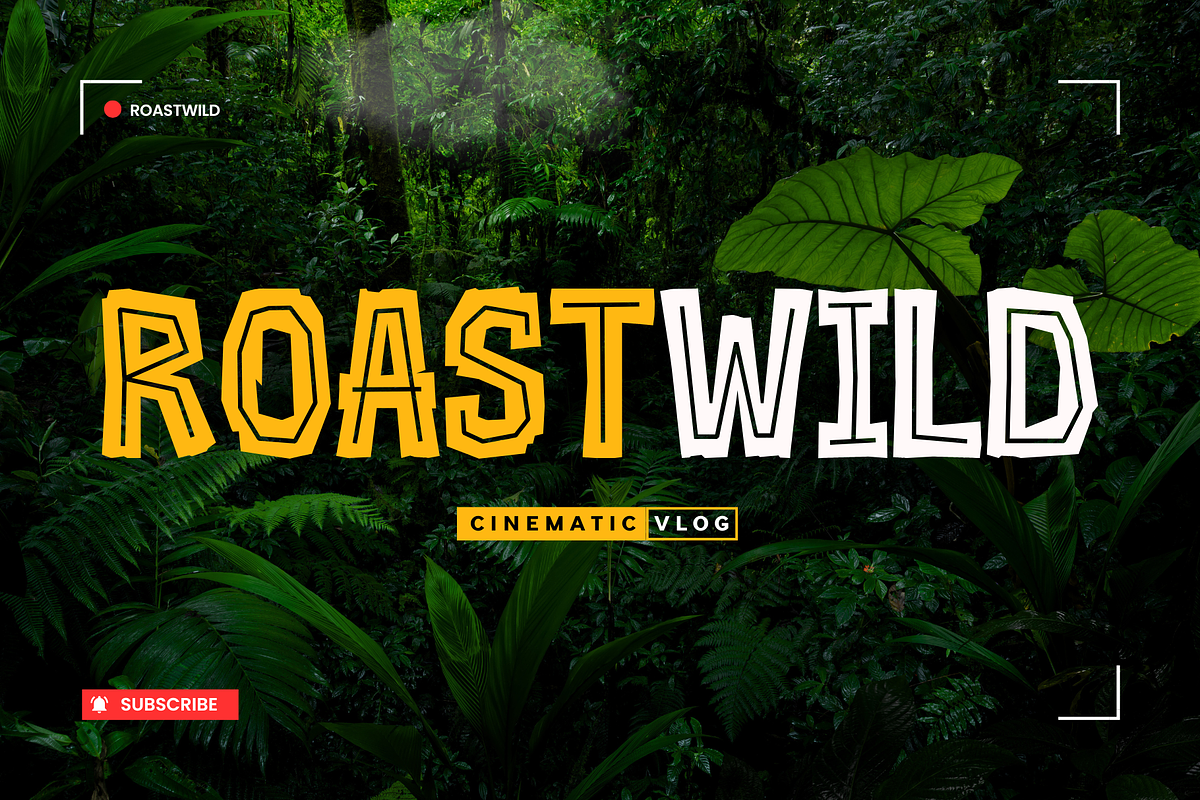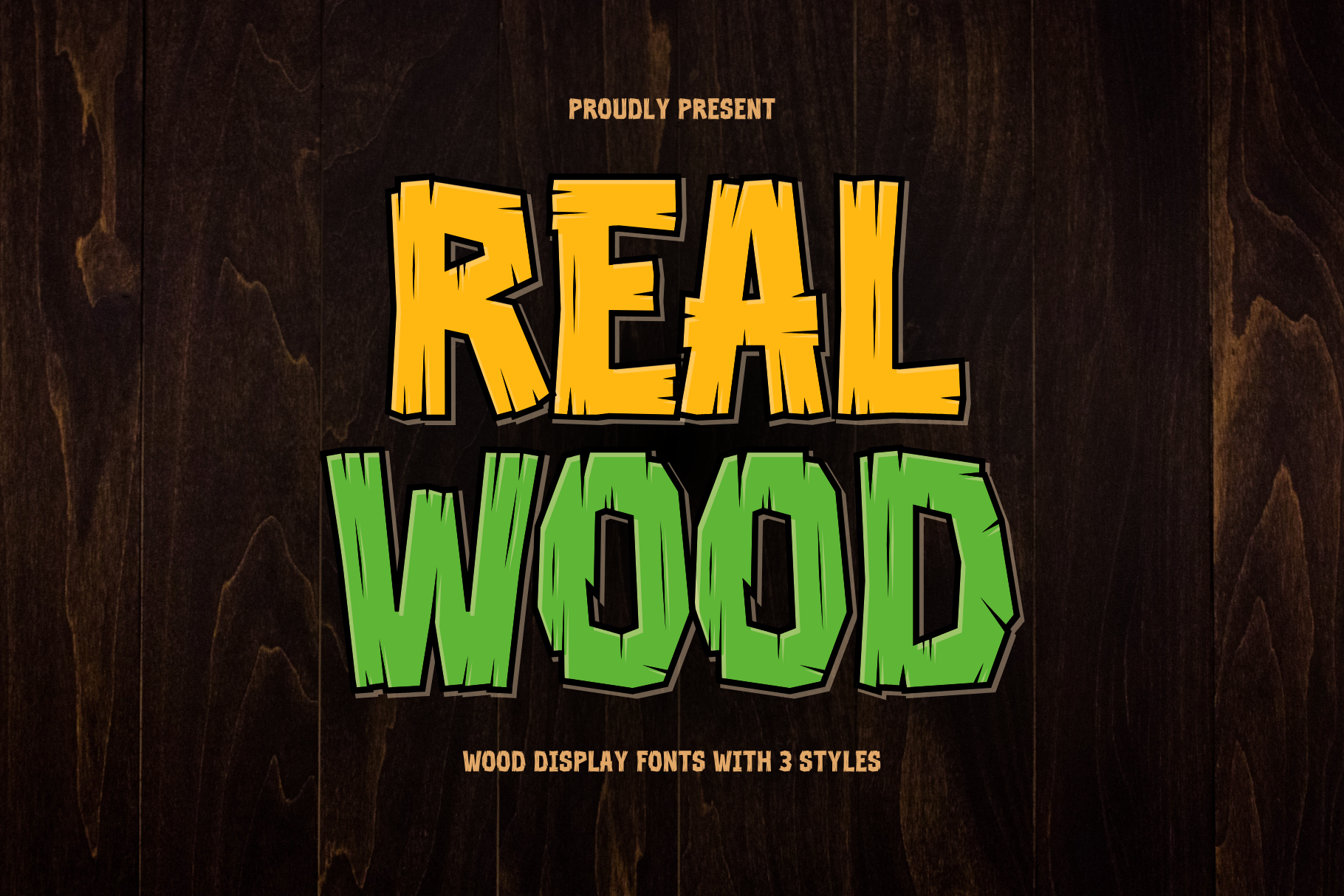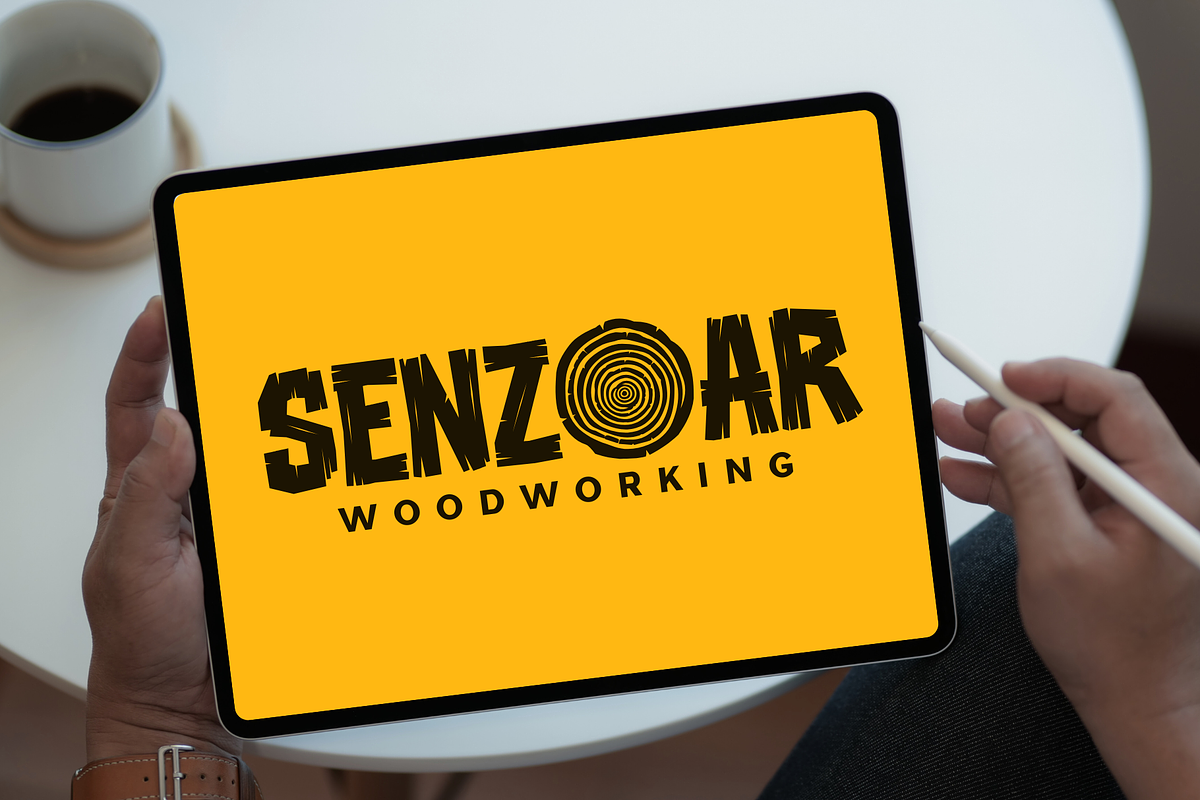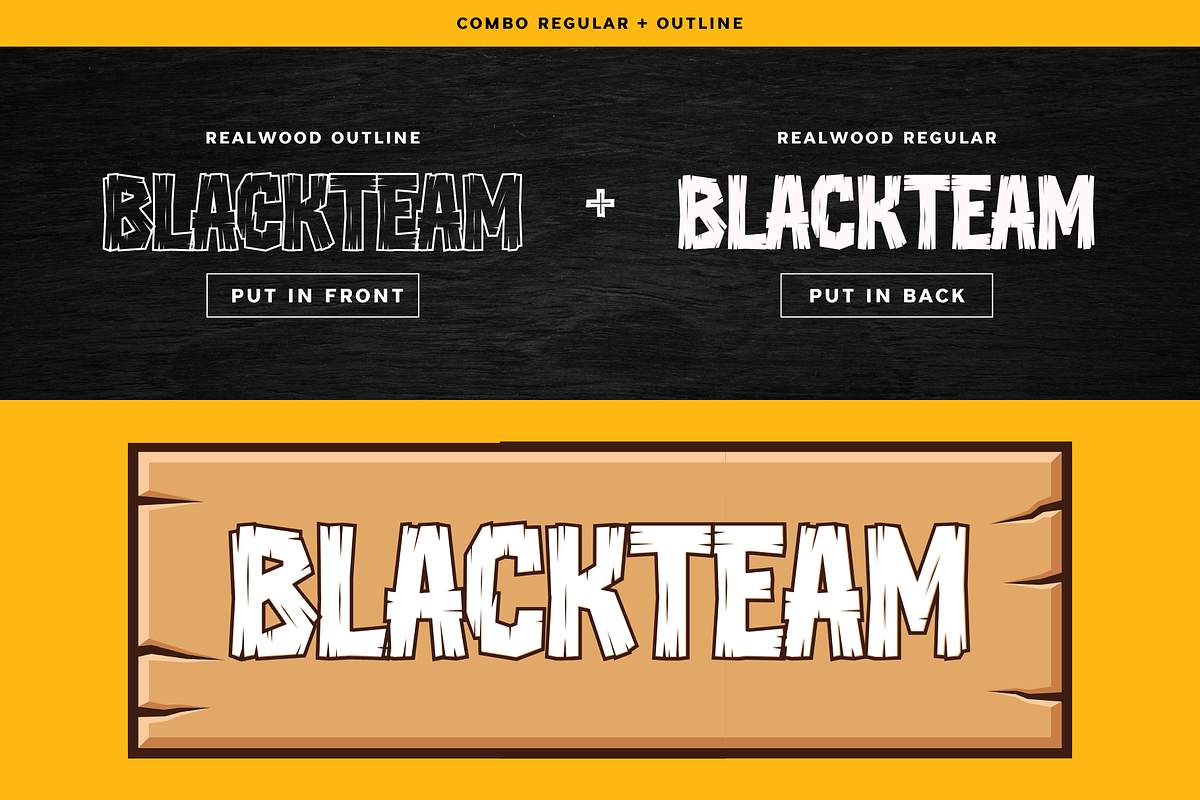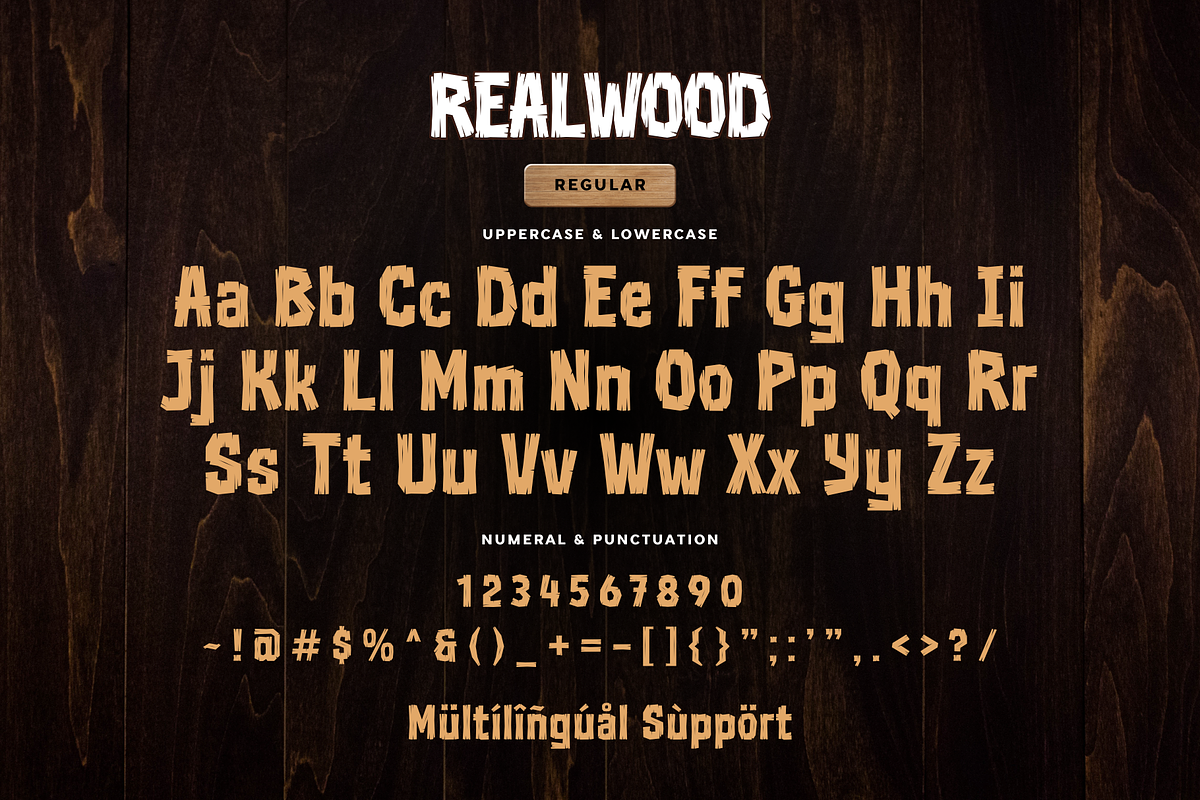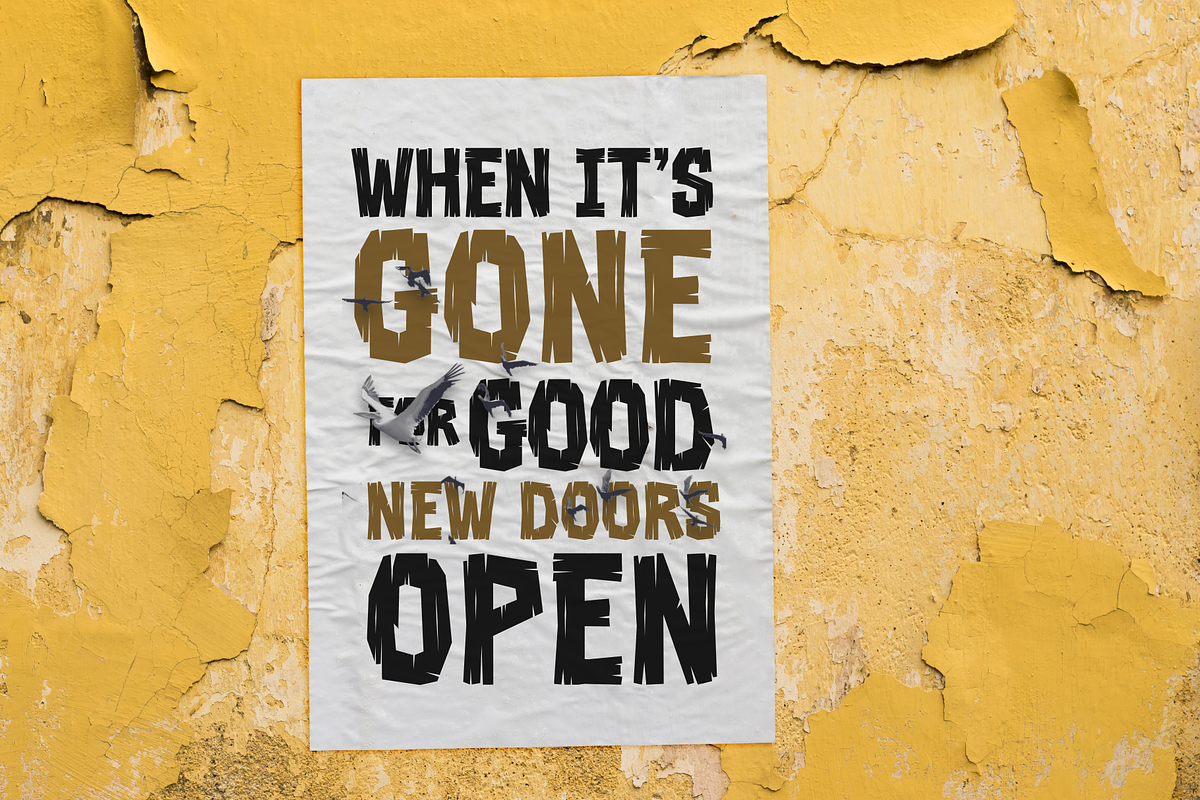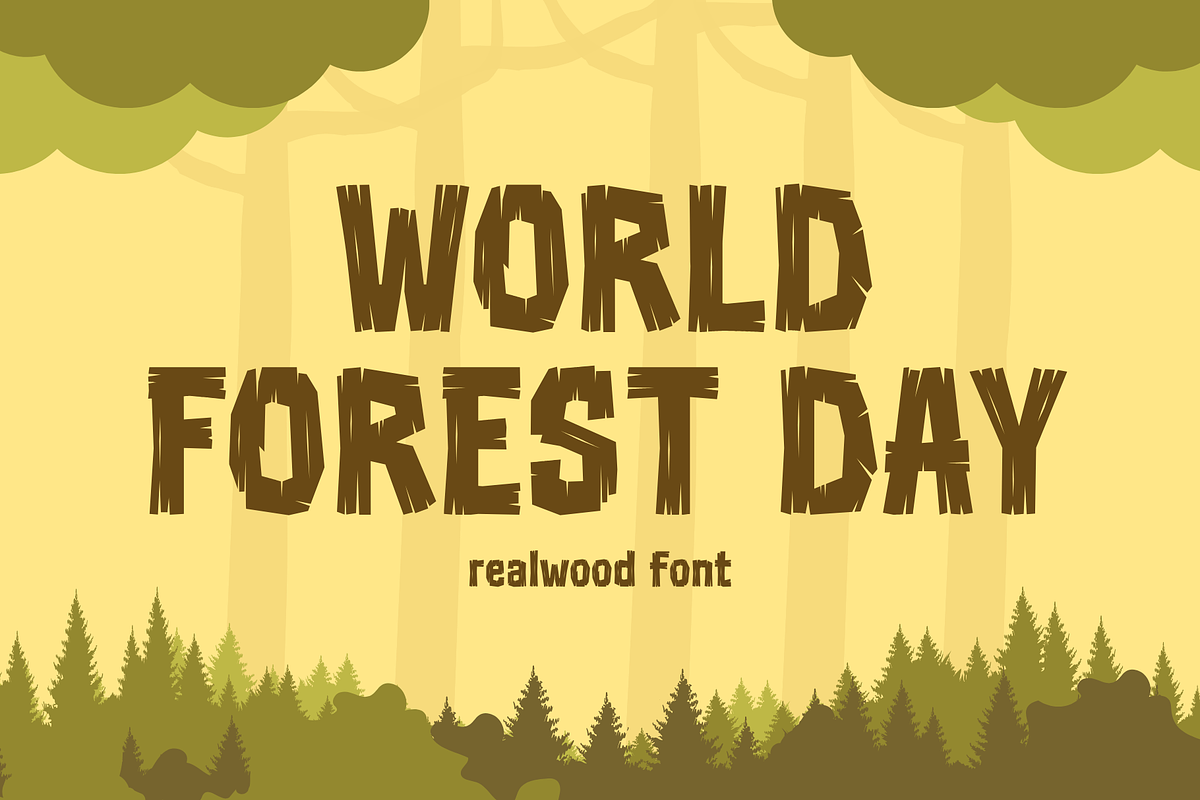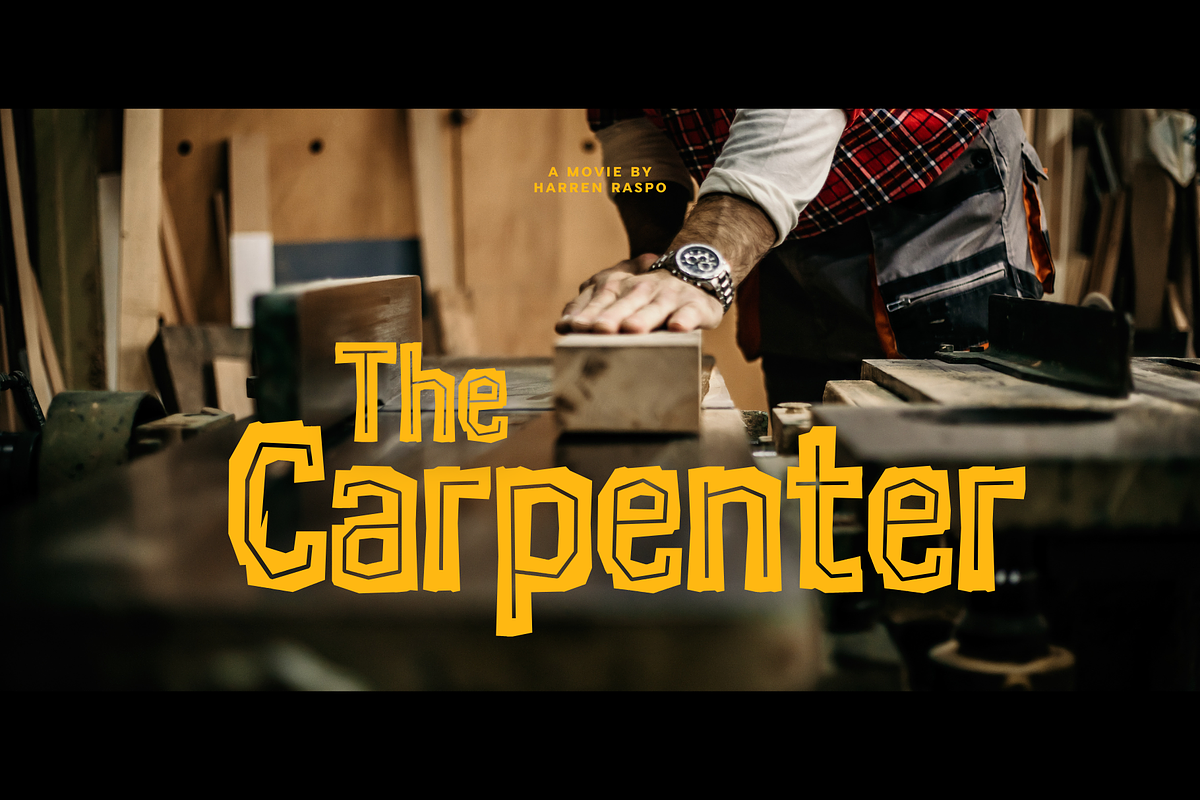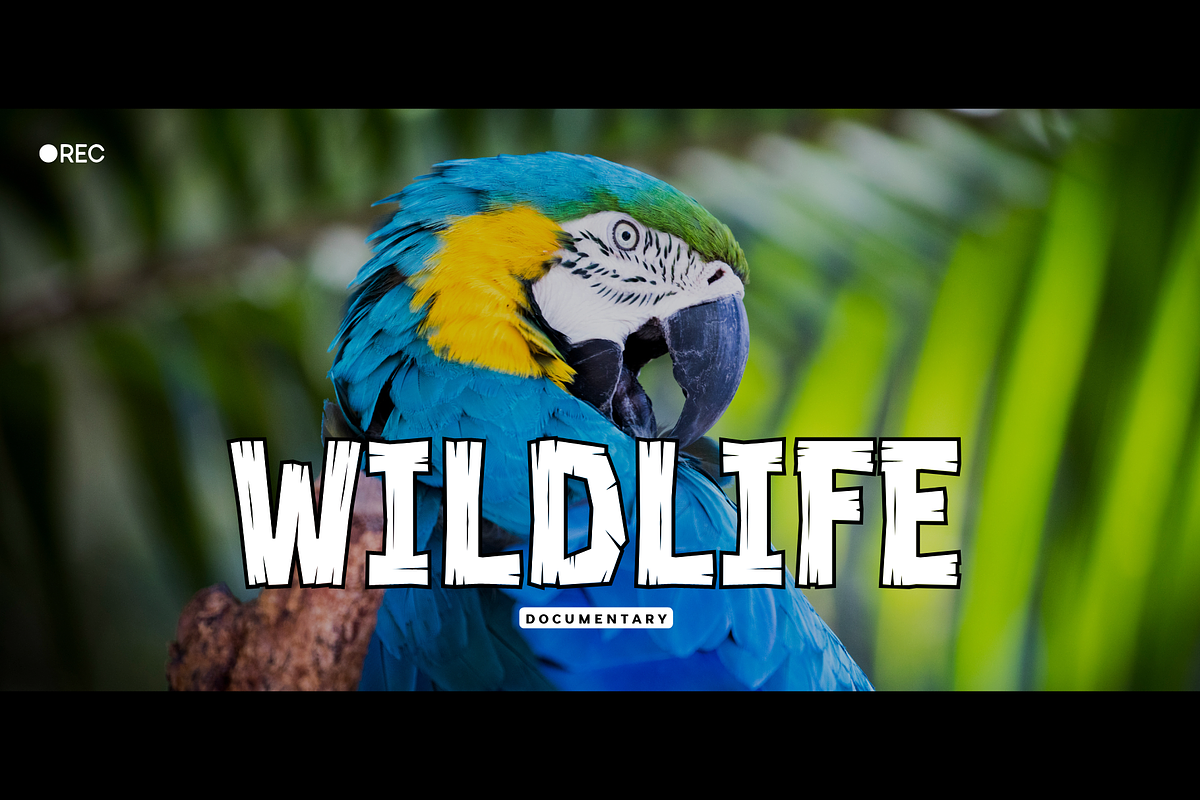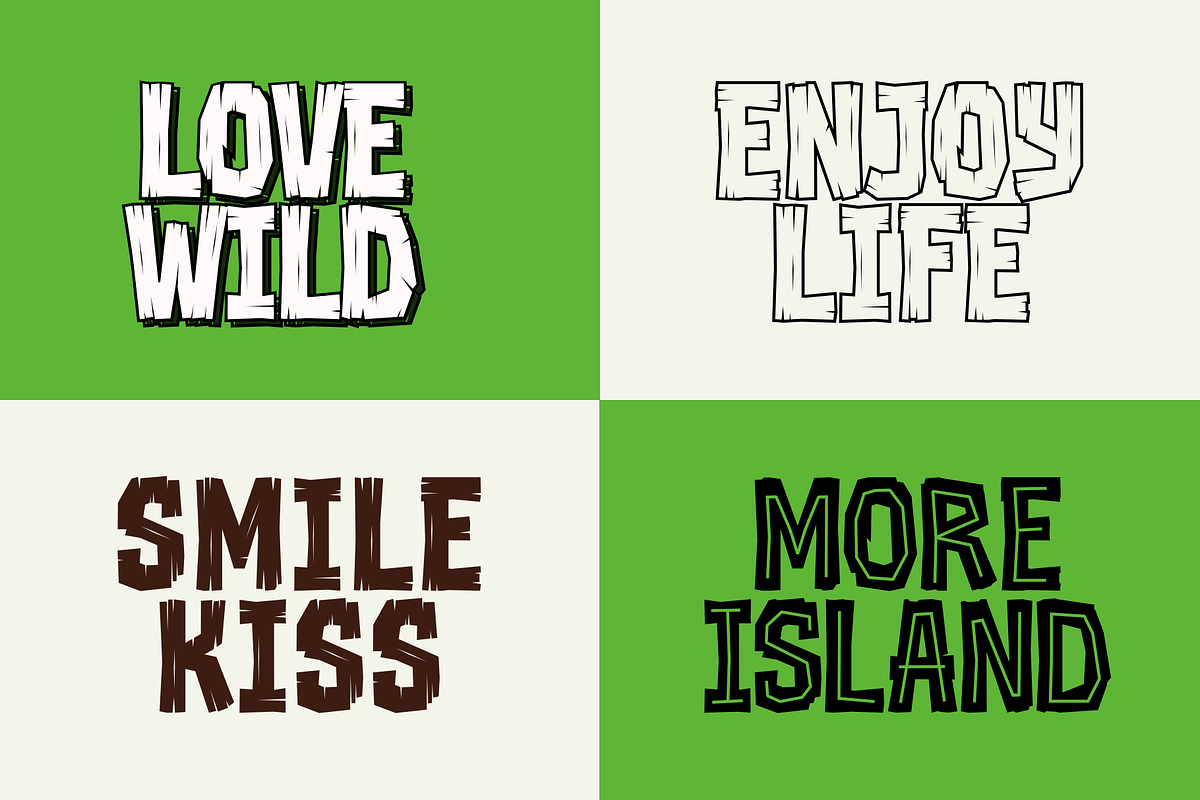
Realwood - Display Font
Realwood is a bold and rustic wood display font that brings the warmth and texture of natural wood to your designs. With its rugged, handcrafted feel, this font is perfect for branding, signage, packaging, posters, and any project that needs a touch of organic charm. Realwood embodies the beauty of nature with its sturdy, textured letterforms, making your designs stand out with a strong and earthy appeal.
- Uppercase & lowercase characters
- Numerals & punctuation